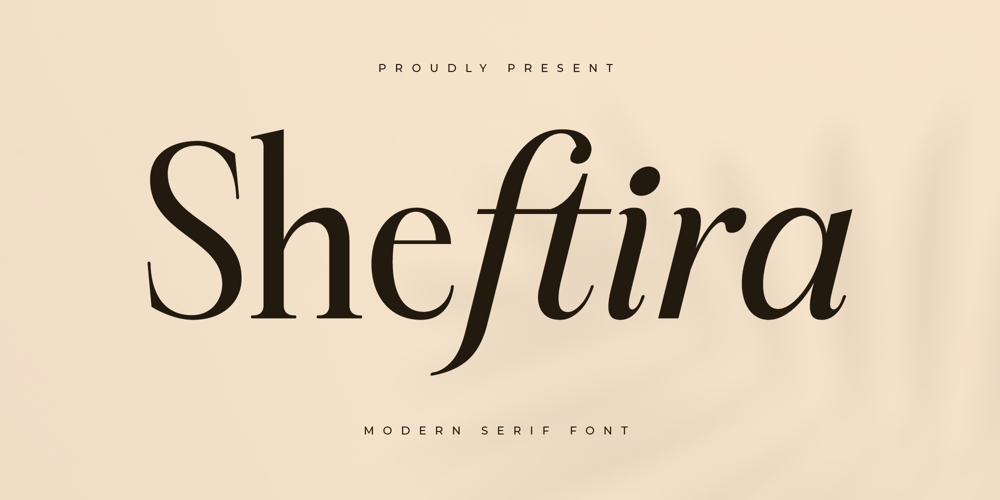
Sheftira Font Family was designed by Heru Utama Putra and published by Letterena Studios. Sheftira contains 2 styles and family package options. Sheftira is a stylish serif font exuding modern elegance and sophistication. With its clean lines and subtle curves, it strikes a perfect balance between classic and contemporary. Ideal for editorial design, branding, and luxury packaging, this font adds a touch of refinement and sophistication to any project.